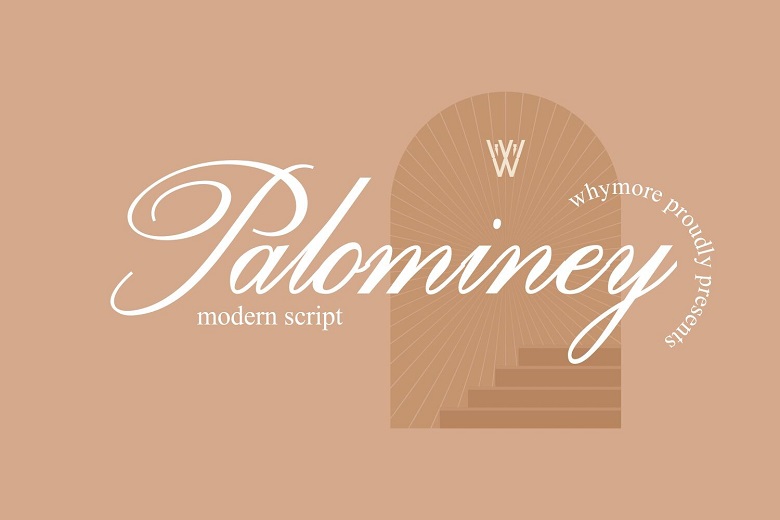
Palominey Font
Palominey is a fluid handwriting style typeface, which is characterized by an injection of elegance to your preferred projects. Admire its uniqueness that makes it very popular and timeless, and build magnificent designs out of it!
Palominey Handwritten Script Font